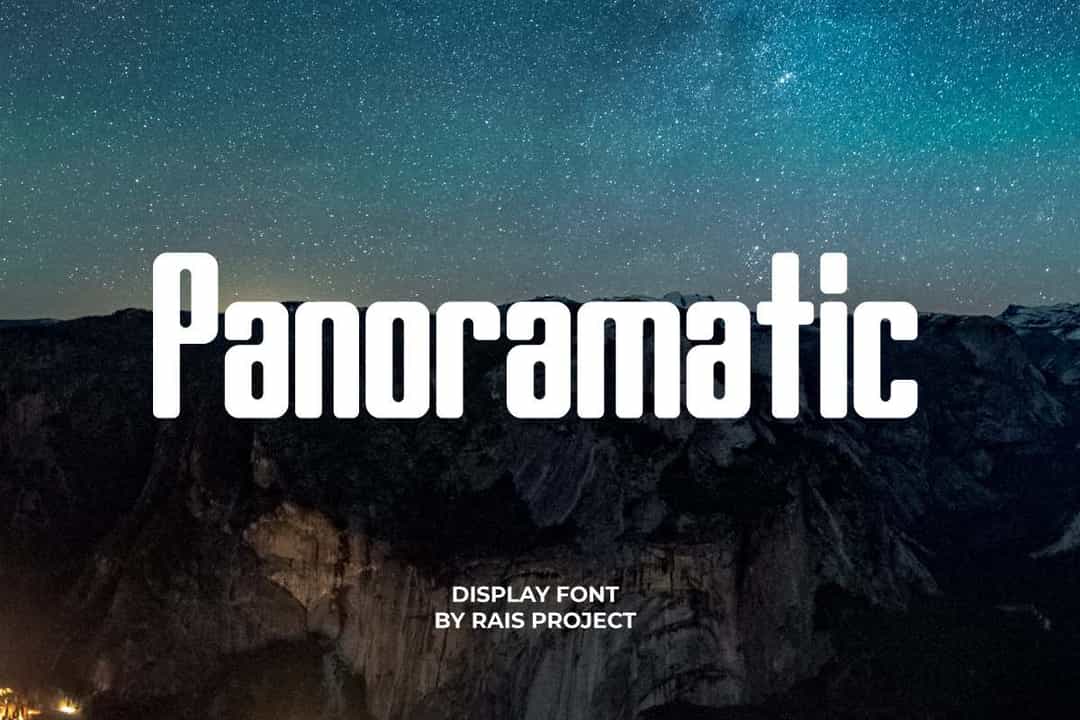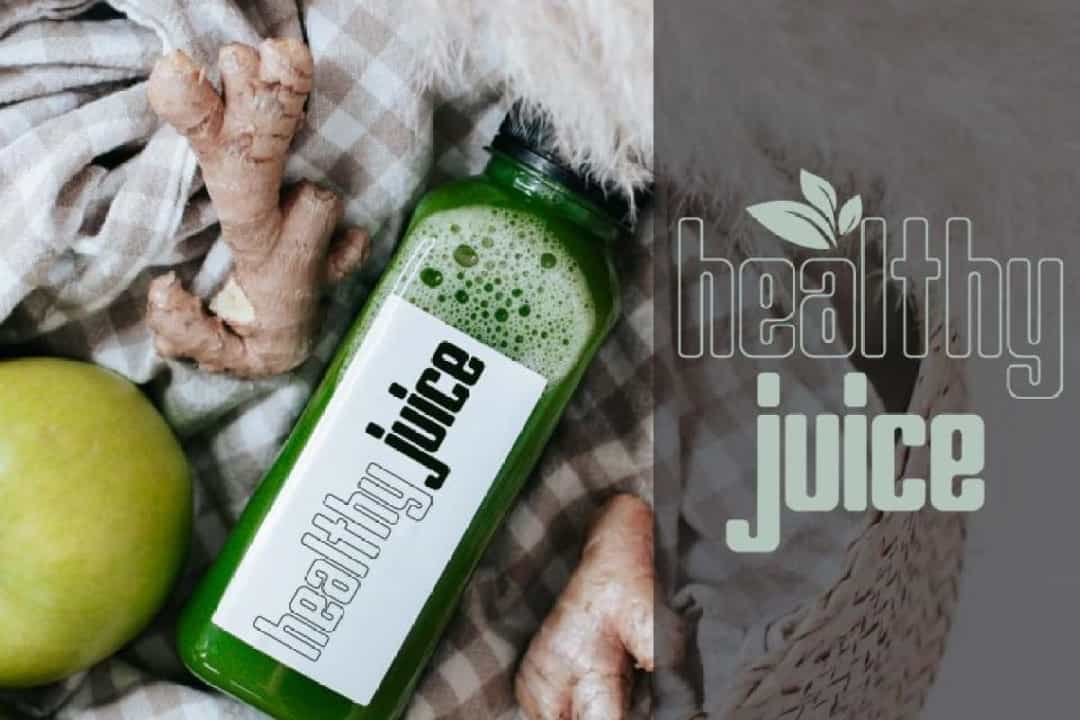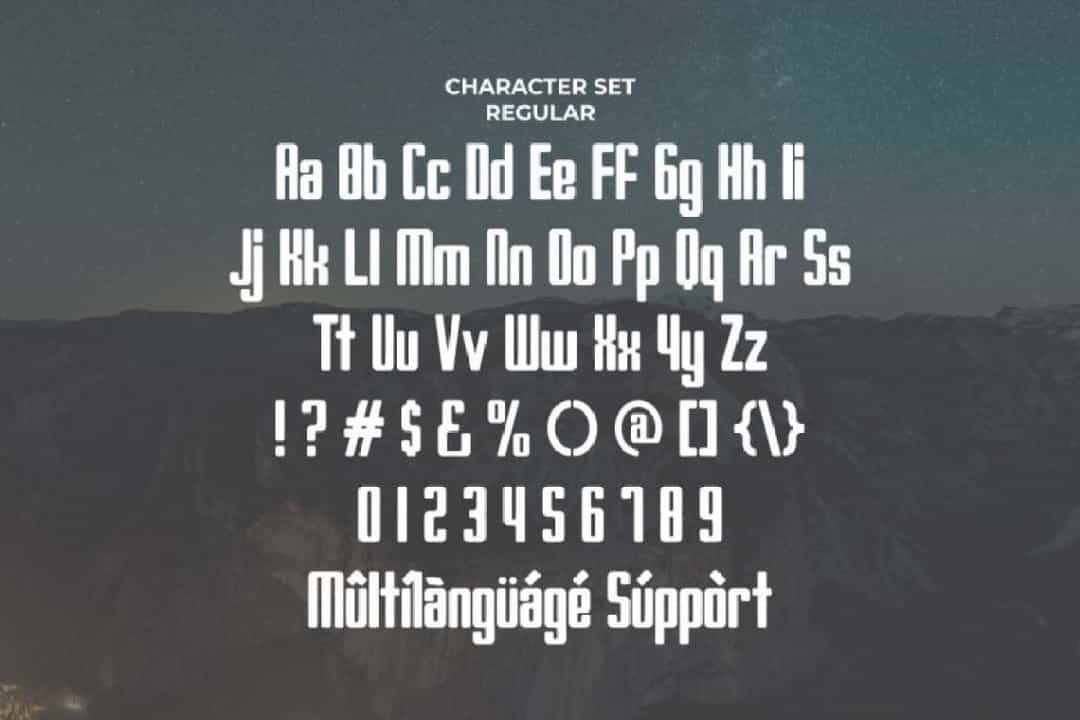
Panoramatic Font, developed by RaisProject, is an elegant casual display font. Suitable for advertising campaigns, branding initiatives, magazine signboards, invitations, signage stationery, social media posts labels or any other project which requires minimalist designs, this font offers distinctiveness with casual elegance.